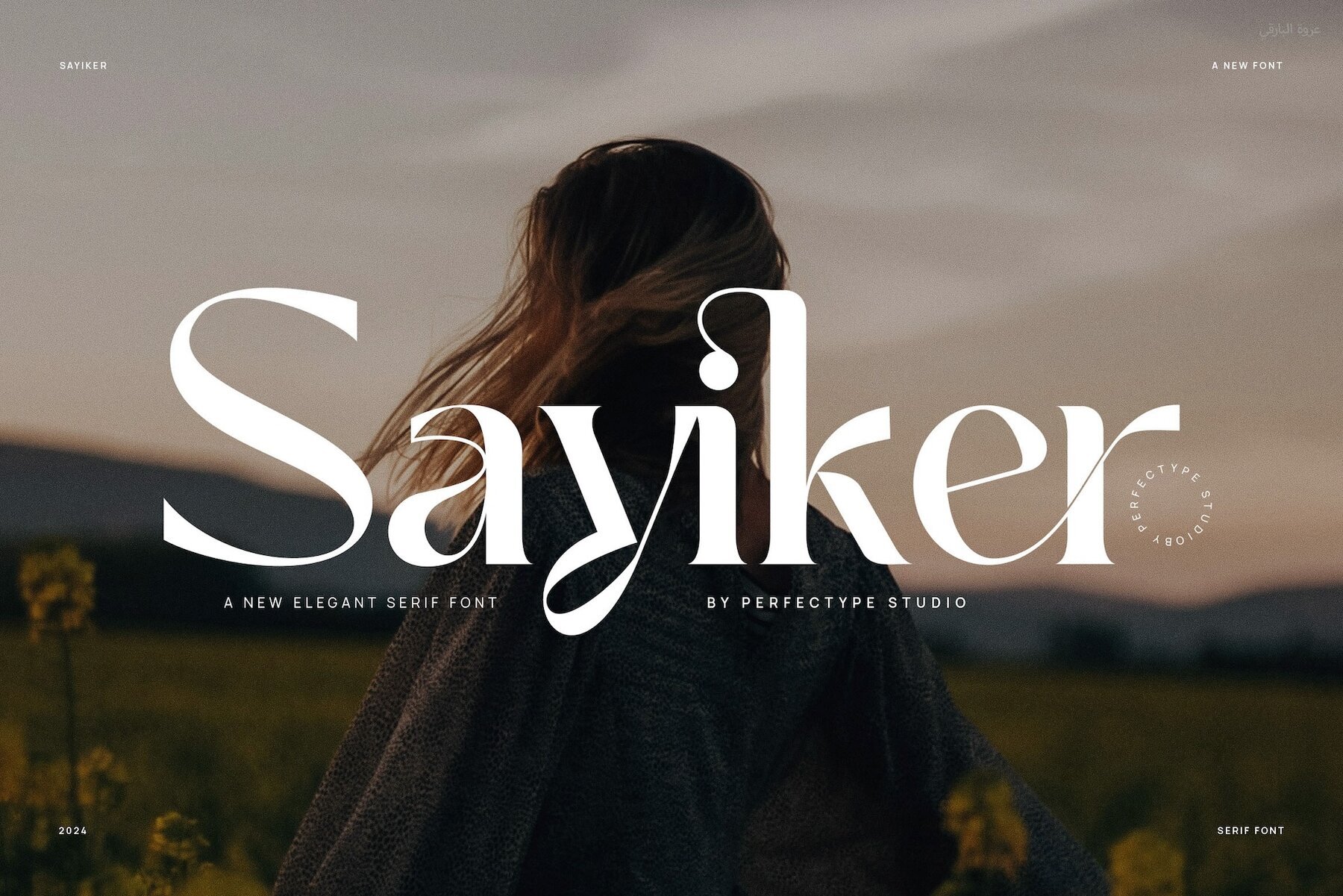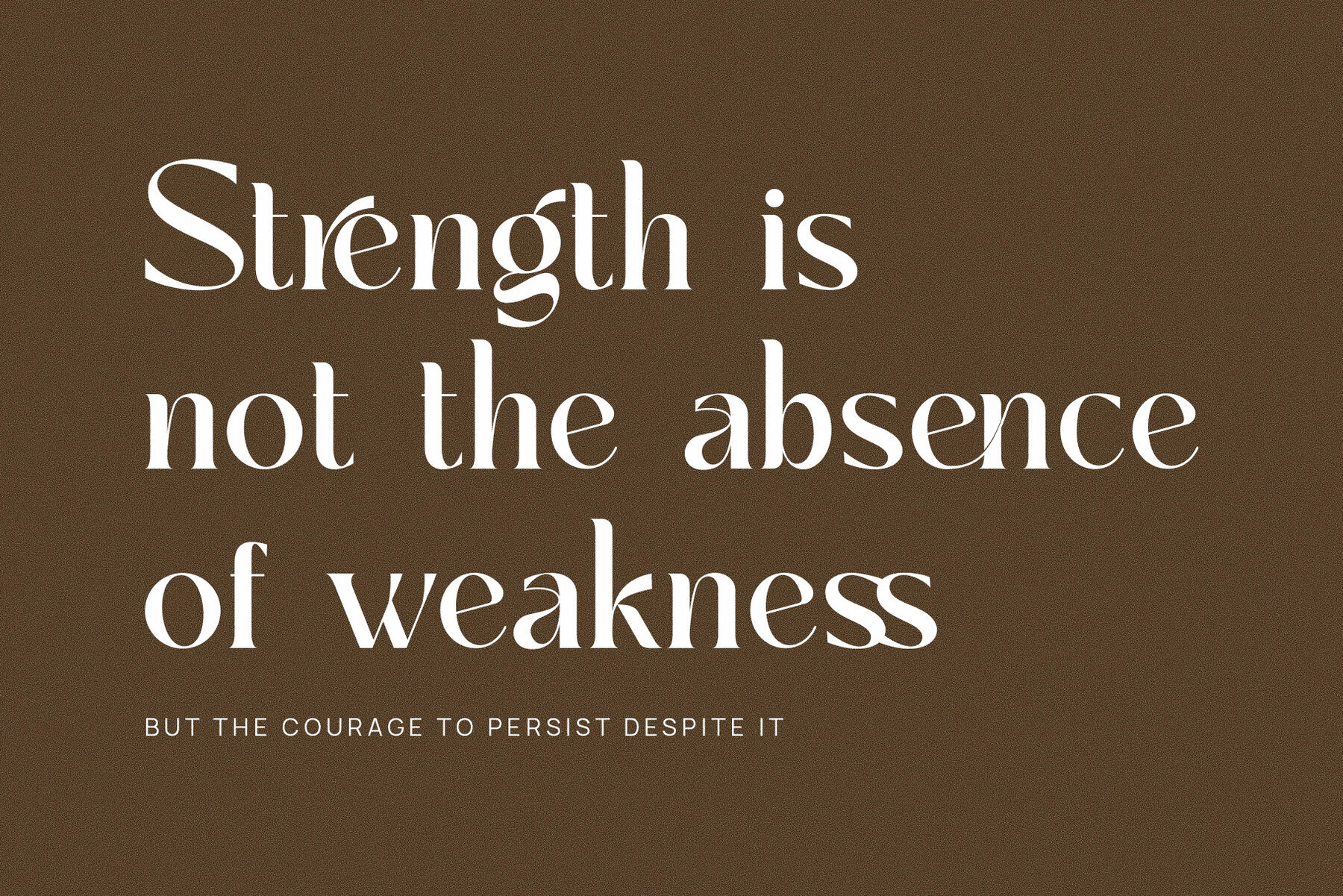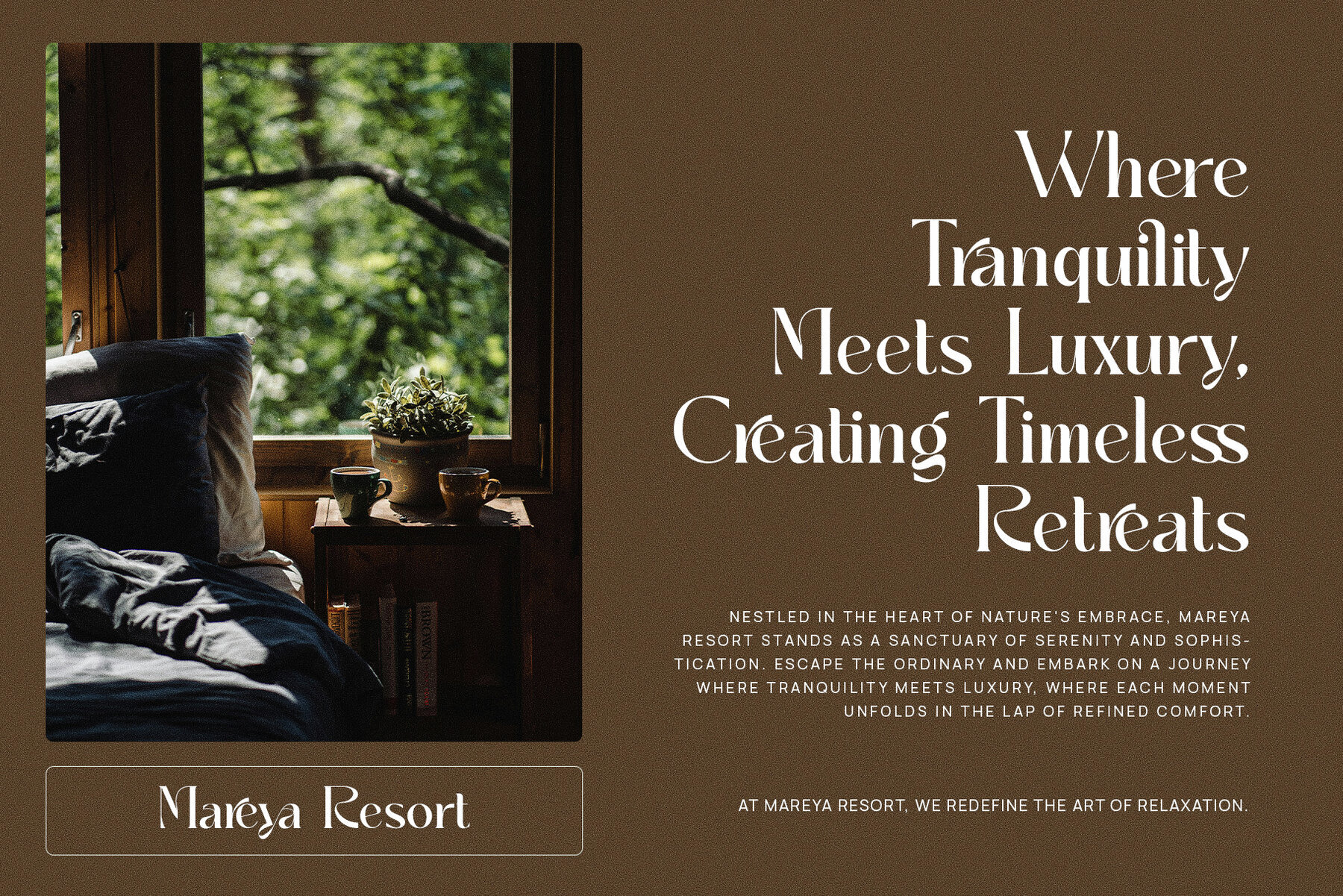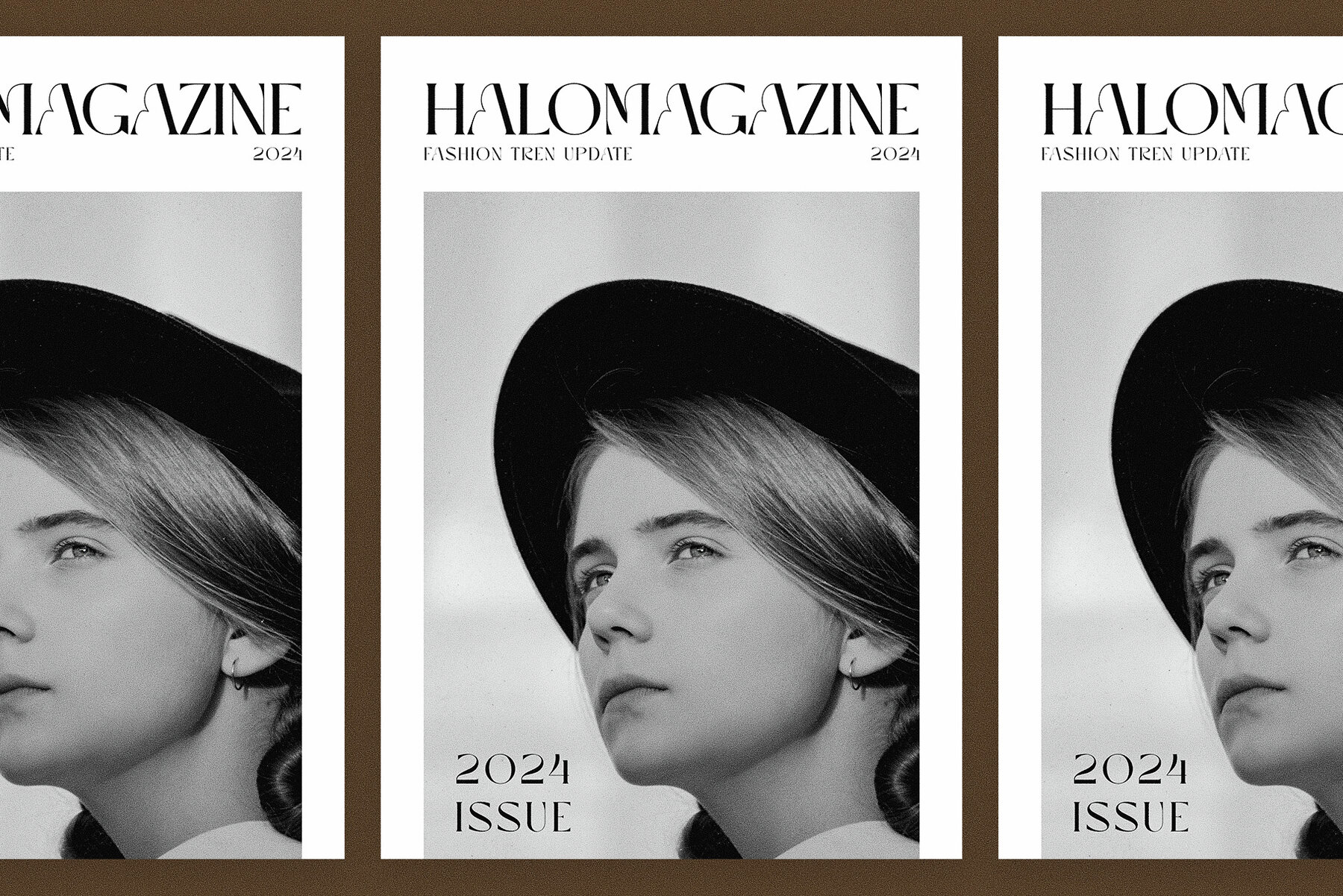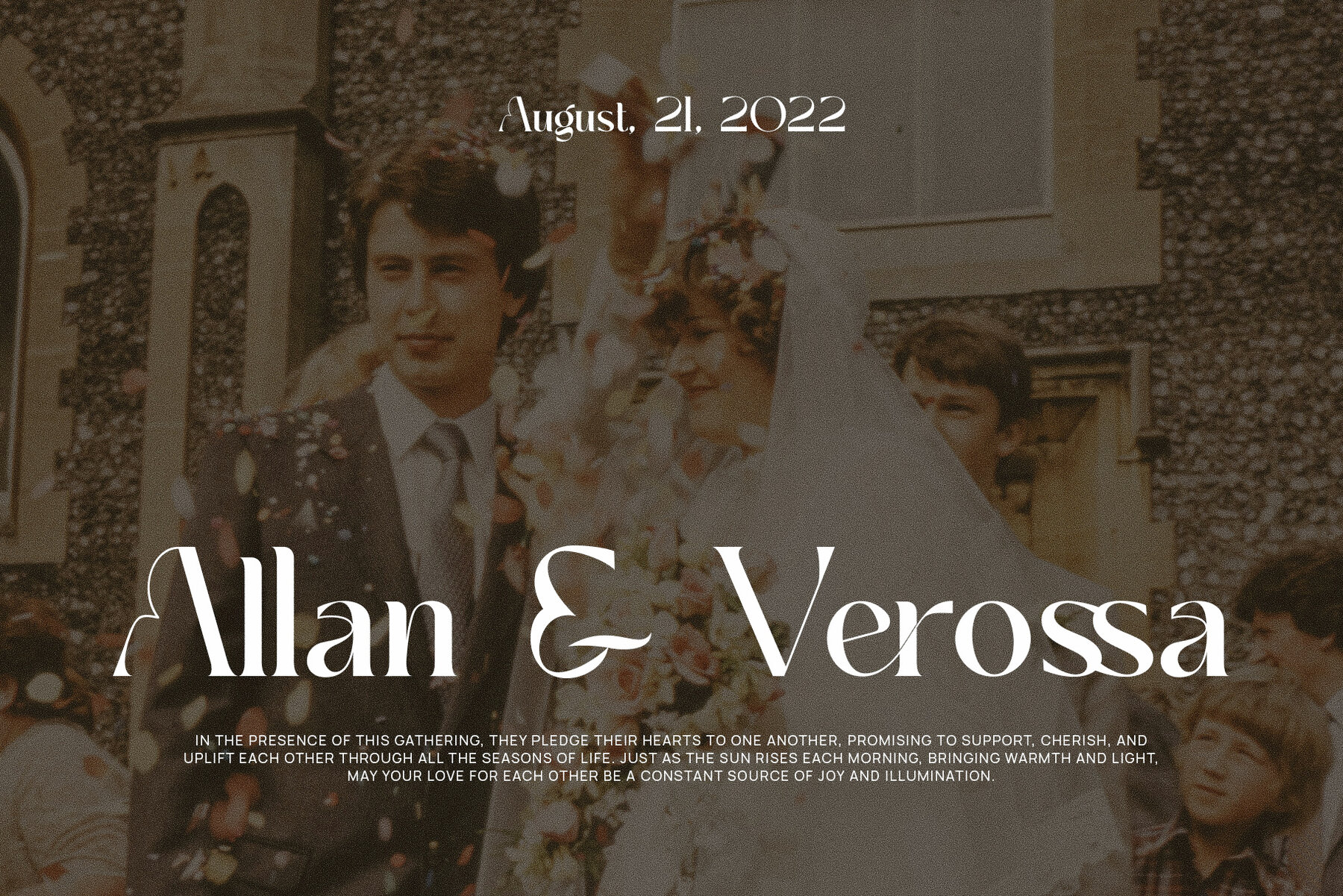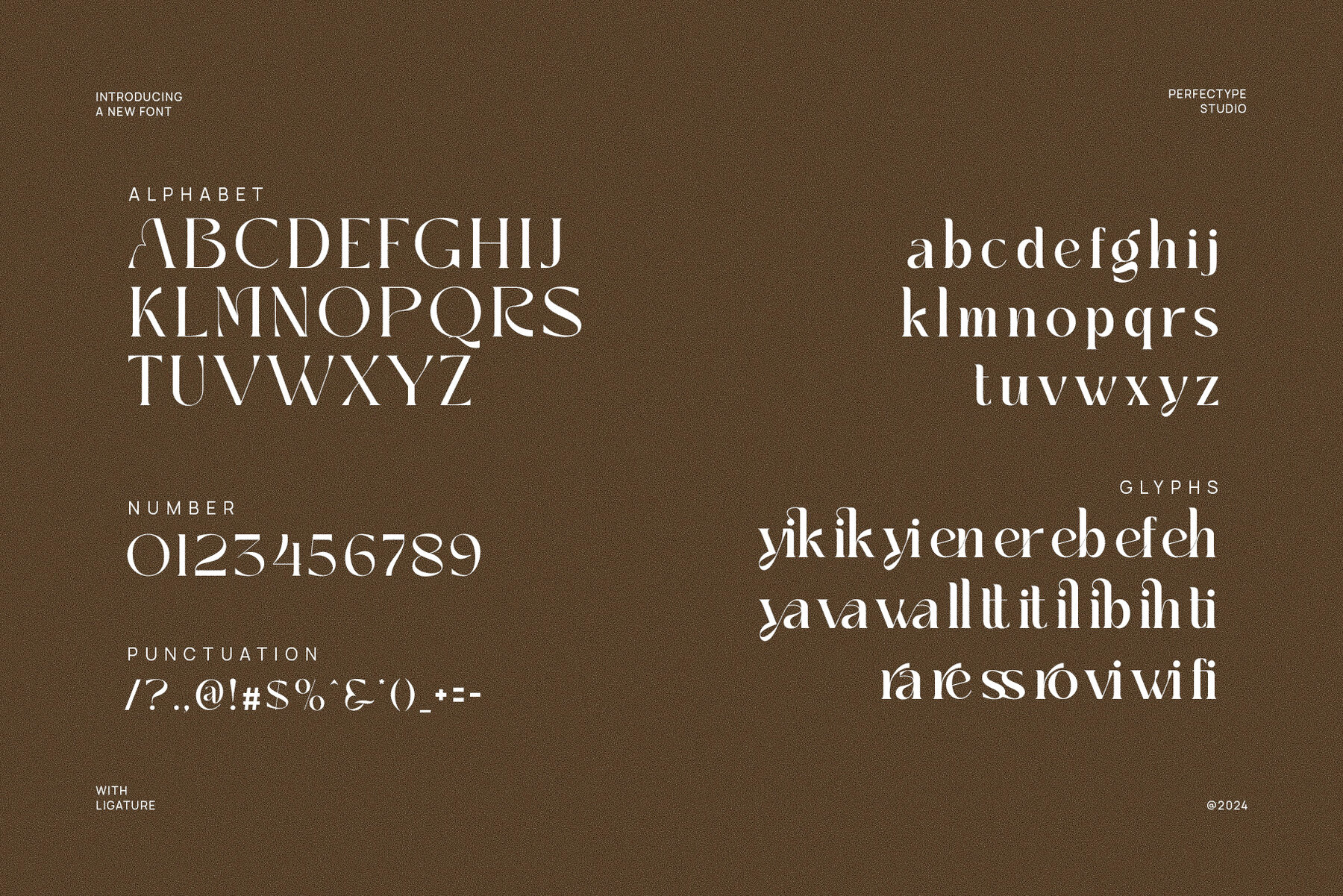
Sayiker Font
Sayiker
Sayiker Elegant Serif Font is a refined and contemporary serif typeface designed to enhance any creative project with its sophisticated charm. With graceful curves and distinctive letterforms, Sayiker strikes a perfect balance between classic elegance and modern appeal. Carefully crafted ligatures and alternates offer versatility, allowing for fluid, eye-catching typography. This makes it ideal for high-end branding projects such as logos, websites, magazines, and product packaging, providing a touch of luxury and professionalism. Its timeless design is appropriate for a wide range of industries, including fashion boutiques, gourmet food brands, and luxury services.
The attention to detail in Sayiker makes it a versatile choice for both print and digital media. The font's sophisticated strokes and smooth transitions create a visual flow that is both legible and aesthetically pleasing, making it suitable for both headings and body text. Whether used for branding, editorial work, or any design needing a touch of elegance, Sayiker ensures your message is communicated with clarity and style. Experience the seamless blend of tradition and modernity with Sayiker, a font that adds a touch of class to any design.